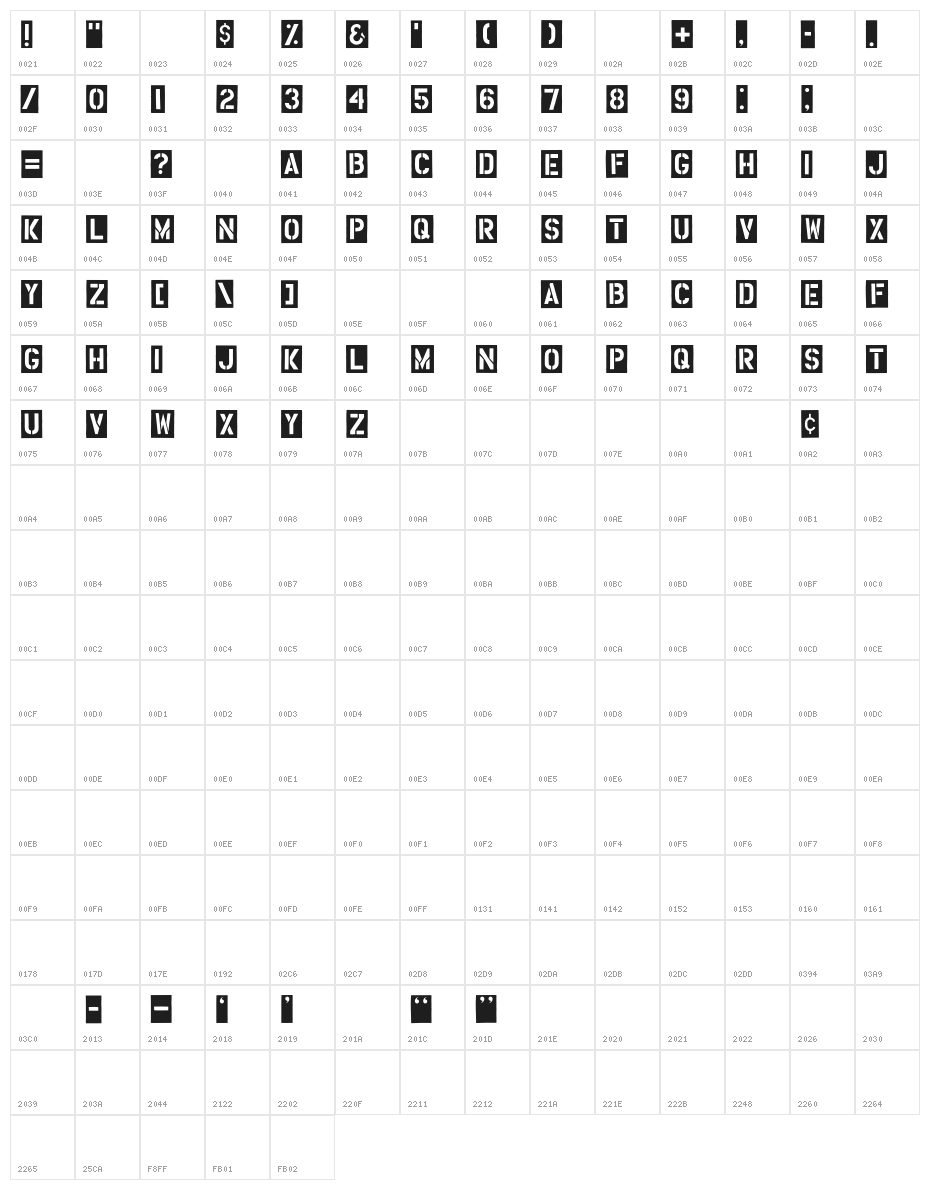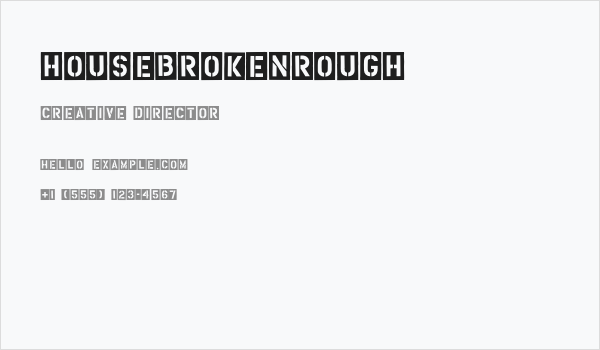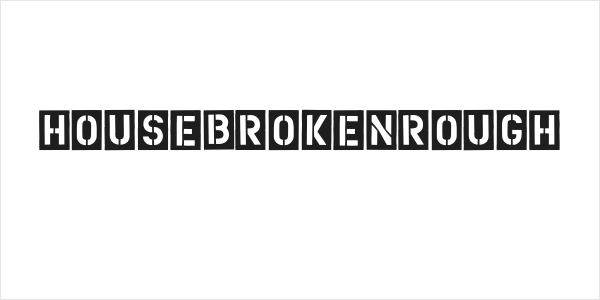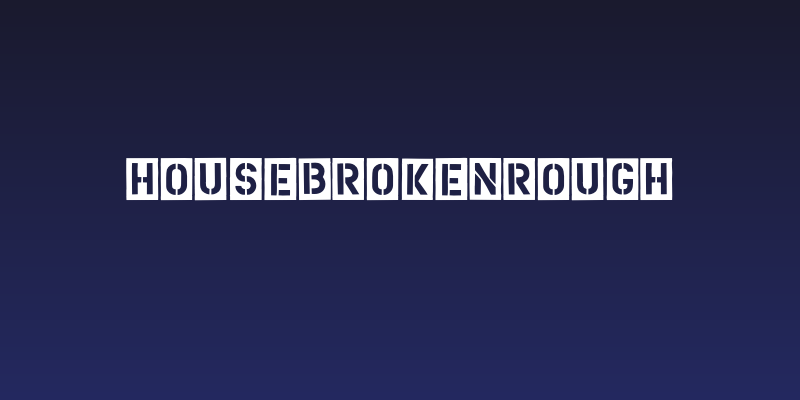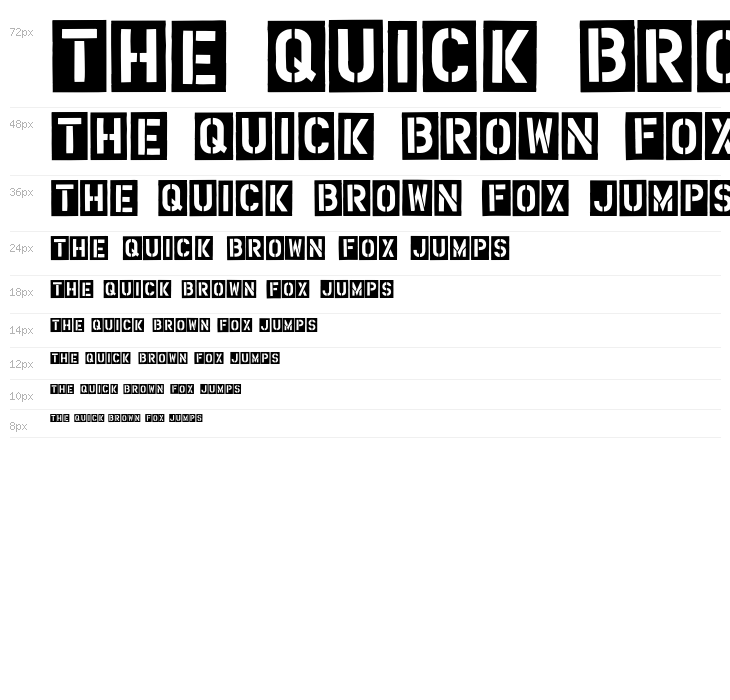
HouseBrokenRough Font
HouseBrokenRough Description
This font features a bold, stencil-like design with a rough, distressed texture that gives it a rugged and industrial feel. Each character is enclosed in a solid rectangular block, enhancing its boldness and making it stand out. The letters and numbers are uniformly designed, maintaining a consistent height and width, which contributes to its structured appearance. The rough edges and irregularities in the characters add a sense of authenticity and vintage charm, making it ideal for projects that require a gritty, urban aesthetic. The font's unique style is reminiscent of street art or military stencils, making it versatile for various creative applications.
| Overall Style | Vintage, Industrial |
| Proposed Projects | Ideal for posters, album covers, street art designs, branding for edgy or urban-themed products, and any project needing a bold, gritty aesthetic. |